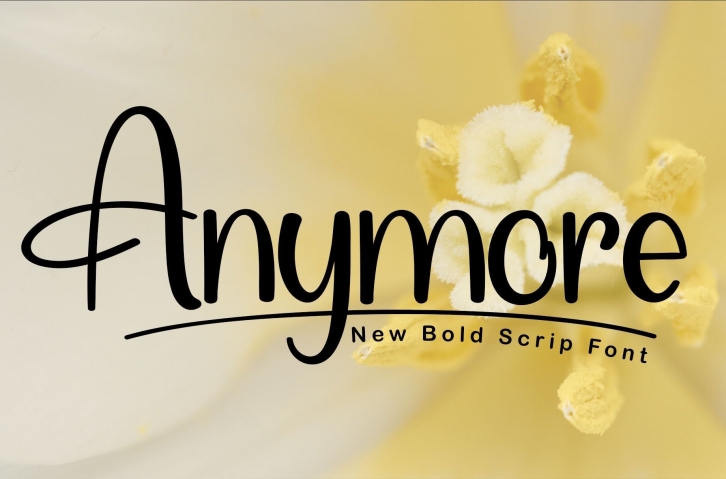
Anymore is a fun and friendly handwritten font. Use it to turn any design idea into a true standout. Get inspired by its unique charm and create lovely designs.